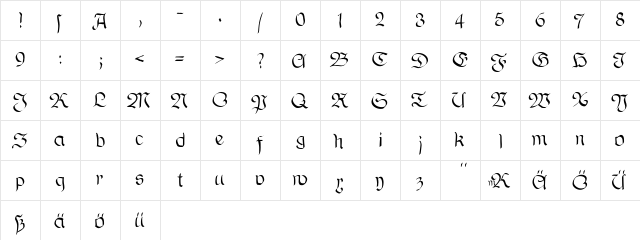
BauernFraktur Regular
BauernFraktur channels the dramatic heritage of Fraktur and Gothic scripts, bringing a sense of historical gravitas to any design.
A natural fit for music packaging, gothic editorial design, and any project that needs historical weight.
Font Pairing: Pair with a clean neutral sans-serif for body copy to let BauernFraktur's character lead without overwhelming the composition.
Pro Tip: Reserve BauernFraktur for display and logo use — pair it with a clean sans-serif for body copy to prevent the composition from feeling oppressive.